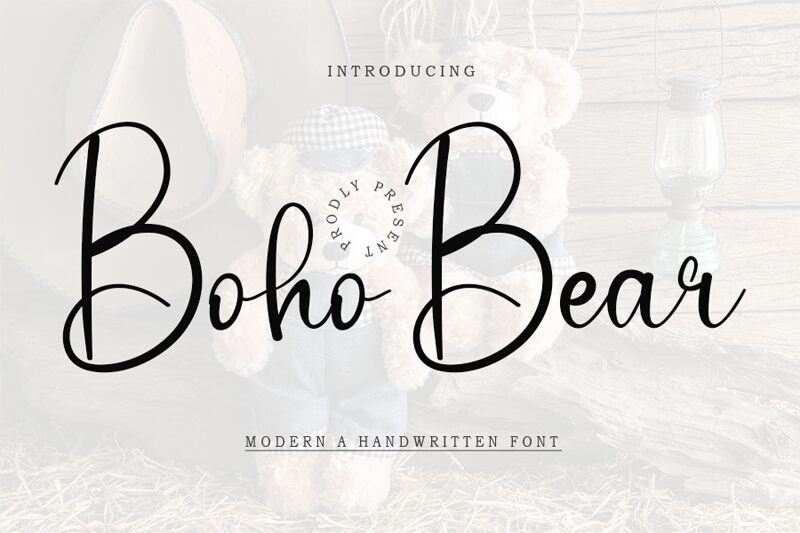
Boho Bear
Boho Bear is a semi-light, handwritten font crafted with care by Etik Fatimah, embodying a blend of casual charm and elegant flair. Its fluid, cohesive strokes convey a personalized touch that resonates with the authenticity of handcrafted artistry. Each character in the Boho Bear typeface is designed to capture the essence of bespoke creativity, making it an ideal choice for projects that demand a friendly yet sophisticated tone.
The aesthetic appeal of Boho Bear lies in its balance between whimsy and refinement. With its semi-light weight, it offers just enough presence for readability without overpowering the creative canvas. This font's style is versatile enough to enhance everything from heartfelt invitations and branding materials to social media graphics and editorial designs.
Boho Bear's approachable elegance ensures that it can seamlessly integrate into a multitude of design environments where a touch of human warmth is desired. Whether you're looking to add personality to your project or aiming for an approachable professional look, Boho Bear stands ready to elevate your creative expression with its unique handwritten charm.